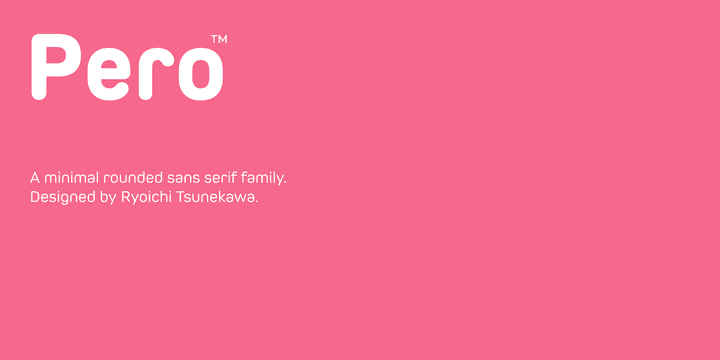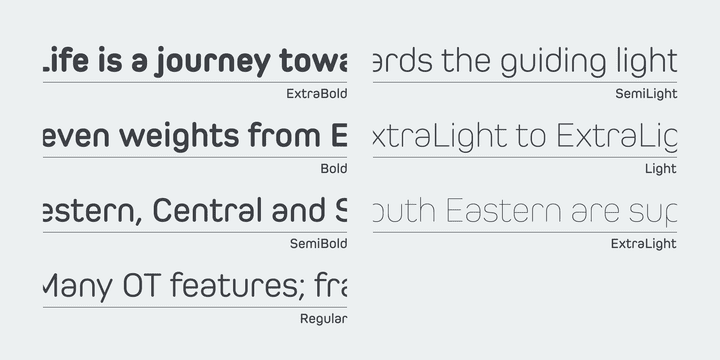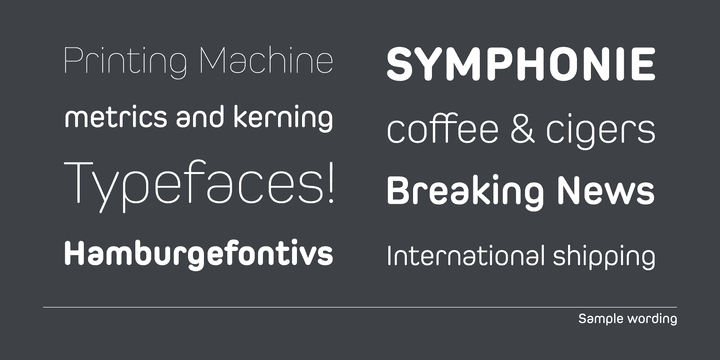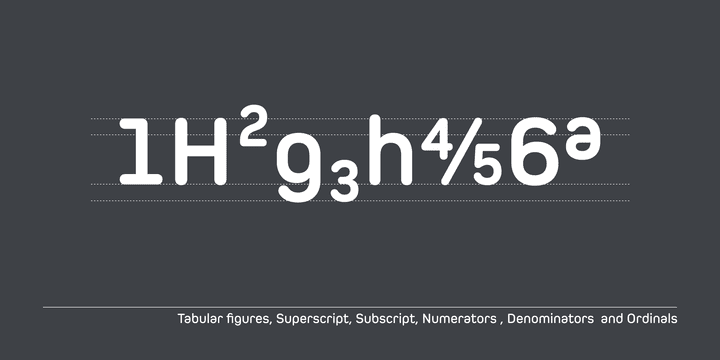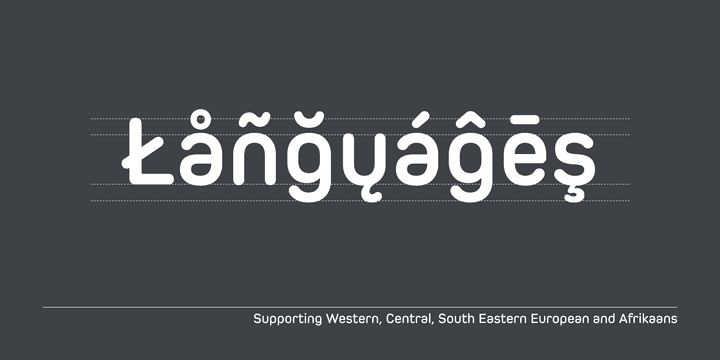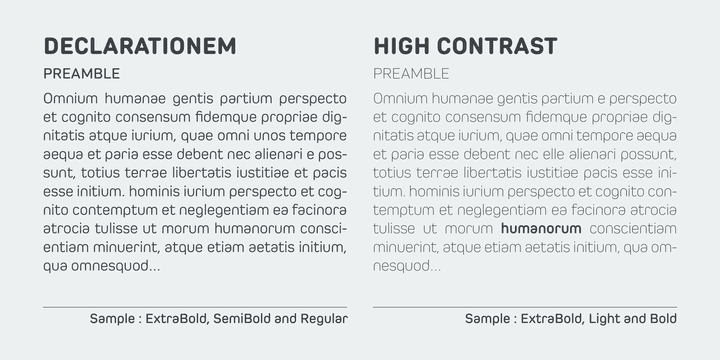
Pero Family (7 fonts)
The basic skeleton of the letterform was designed modularly and minimalized by removing unnecessary stems and ends were rounded out.
The minimalized modular design gives this family contemporary urbane taste and rounded corners make this family warm and friendly. This rounded feature will also accentuate your design work moderately. Pero supports almost all European languages: Western, Central, South Eastern Europeans and afrikaans. And superior figures, inferior figures, denominators, numerators and fraction can be accessed by using OpenType features.